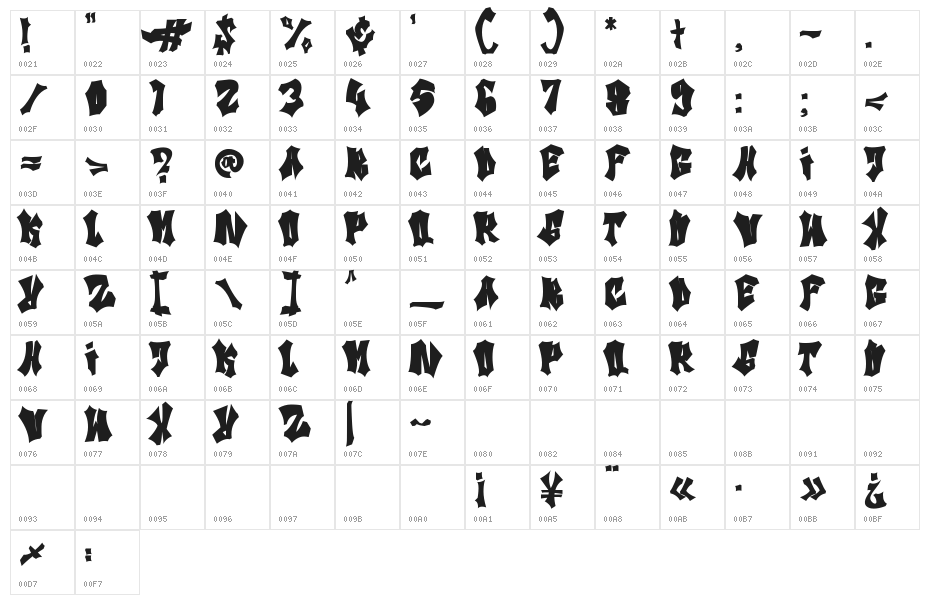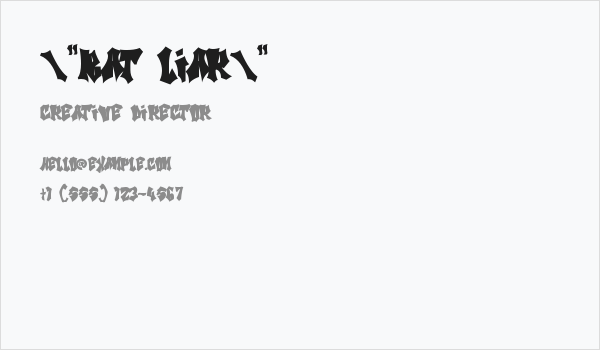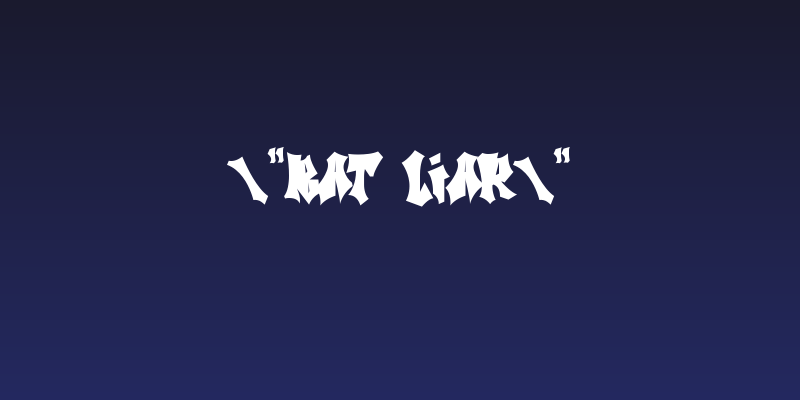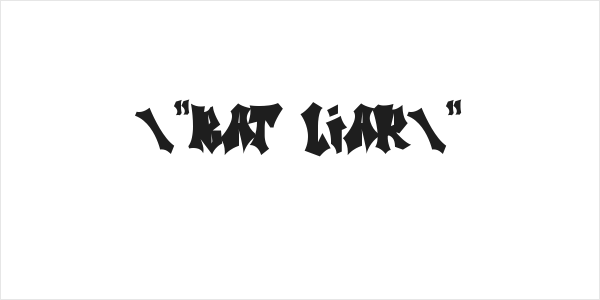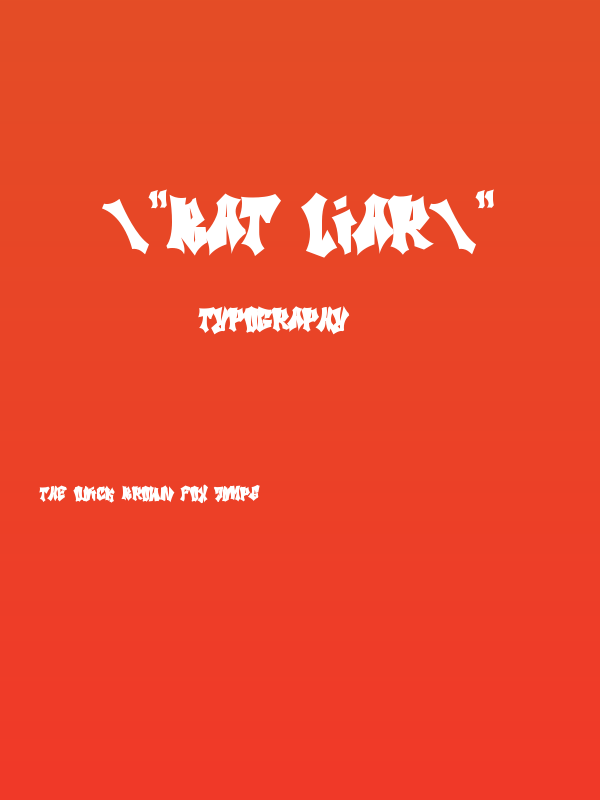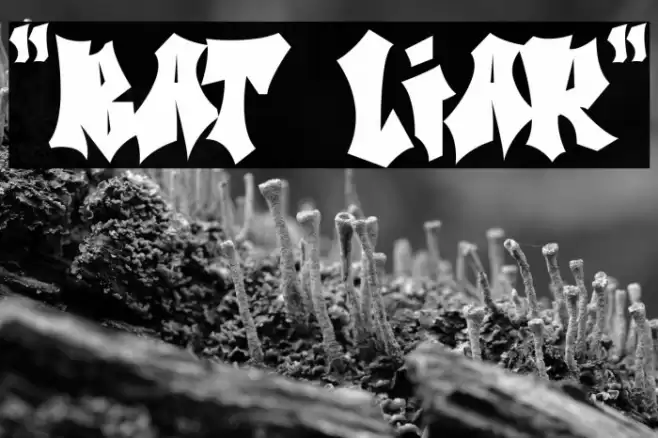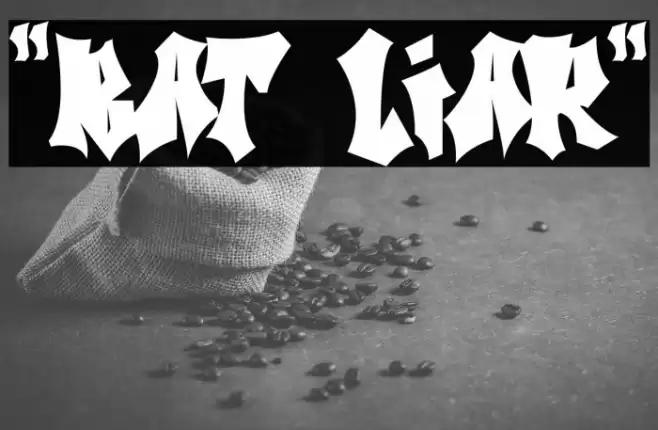
"Bat Liar" Font
"Bat Liar" Description
This font features a bold, angular design with sharp edges and a gothic-inspired aesthetic. The characters are heavily stylized, with exaggerated serifs and a dramatic flair that gives them a distinct, eye-catching appearance. The uppercase and lowercase letters maintain a consistent style, while the numerals and special characters complement the overall theme. The font's unique design makes it suitable for projects that require a strong visual impact, such as posters, album covers, or branding for edgy or alternative products.
| Overall Style | Gothic, Decorative |
| Proposed Projects | Ideal for posters, album covers, branding for alternative products, and any project needing a strong visual impact. |